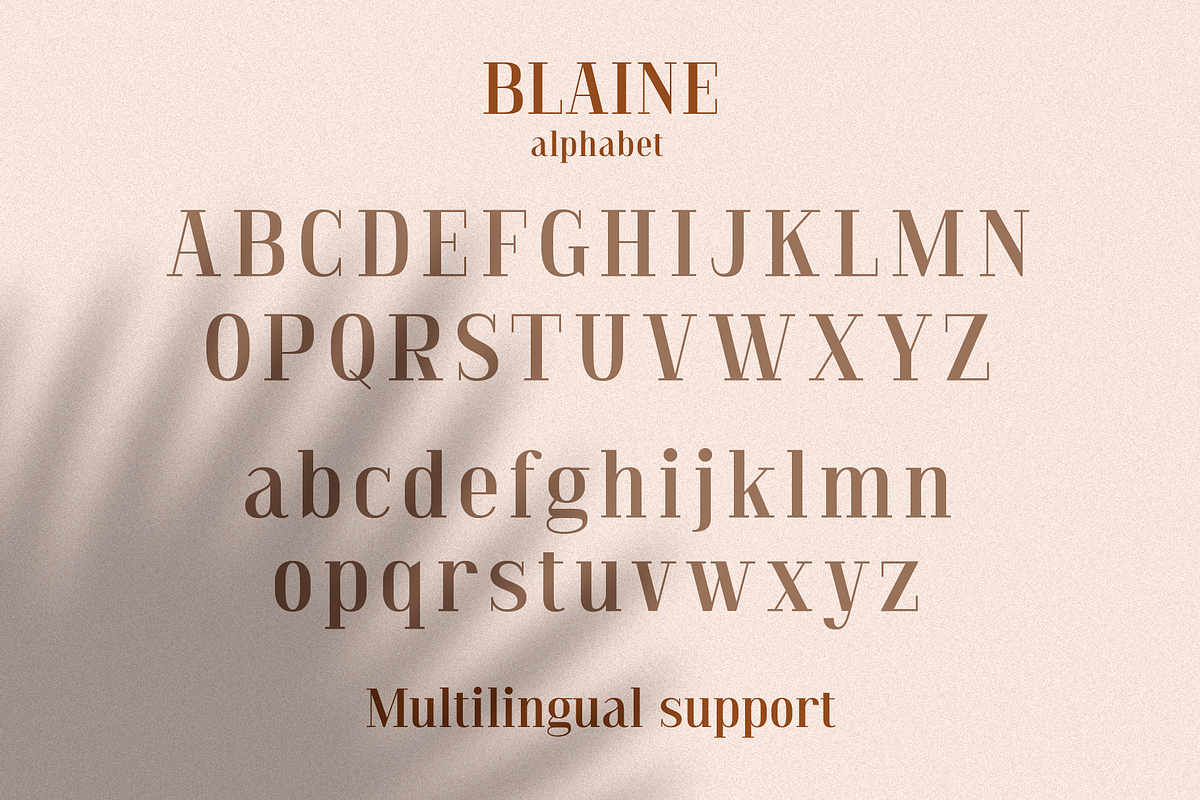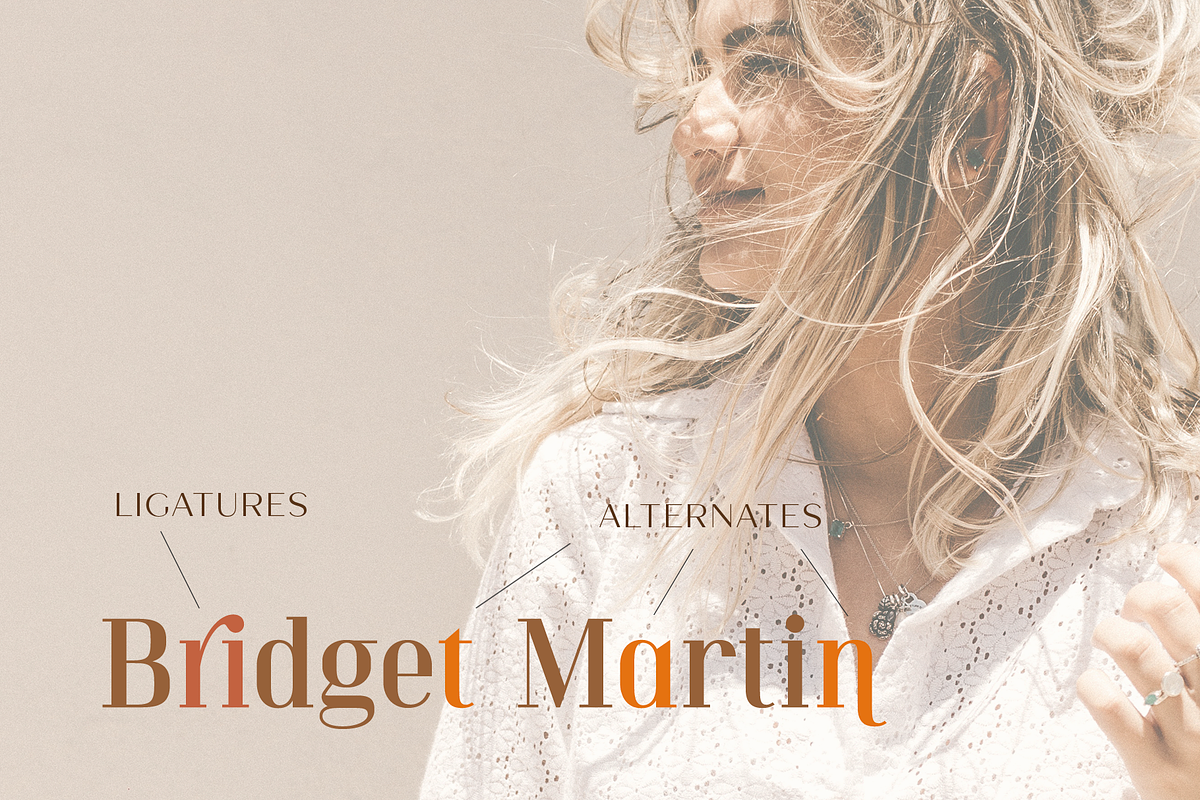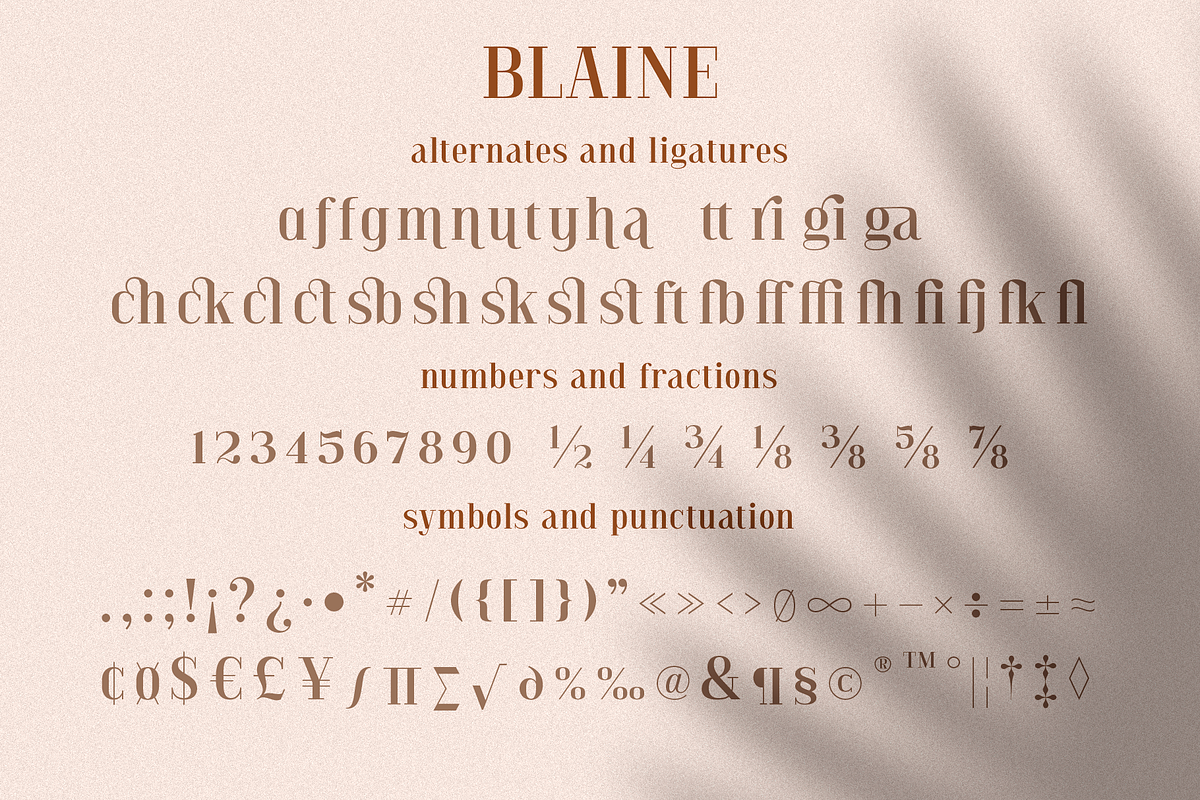
Blaine
Blaine this is a multi-purpose serif font that will fit perfectly into any project. contrastive and elegant, it carries a classic and at the same time modern contrasting performance. You can also use alternates and ligatures for variety and this will add more charm to your project and emphasize your personality. Use it to create logos, book and magazine covers, branding, posters, flyers, outdoor advertising, stationery, business cards, and much more. This font is easy to use, has OpenType features.
Following international symbols support: ÀÁÂÃÄÅĄÇĆÈÉÊËĘÌÍÎÏÐÑŃŁÒÓÔÕÖØÙÚÛÜŚŠŸÝŹŻŽßàáâãäåçèéêëìíîïðñòóôõöøùúûüýÿąćęłńśšźżž
Full alphabet with Uppercase and Lowercase A-z
Numbers, fractions
Punctuation and symbols